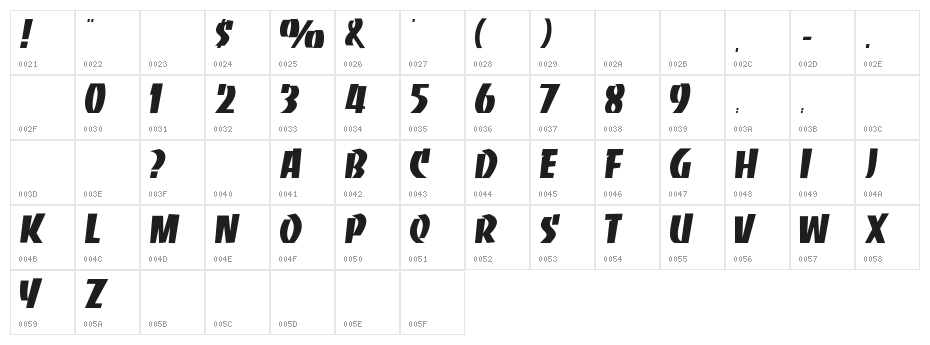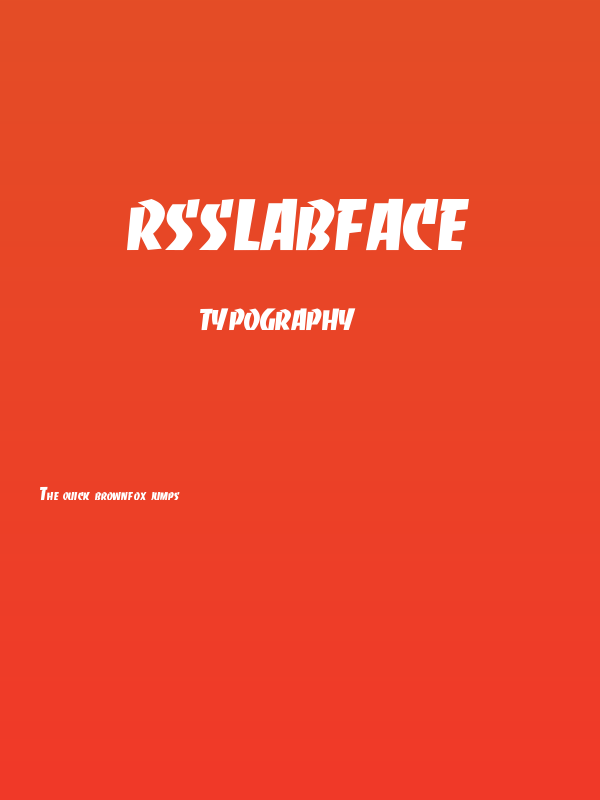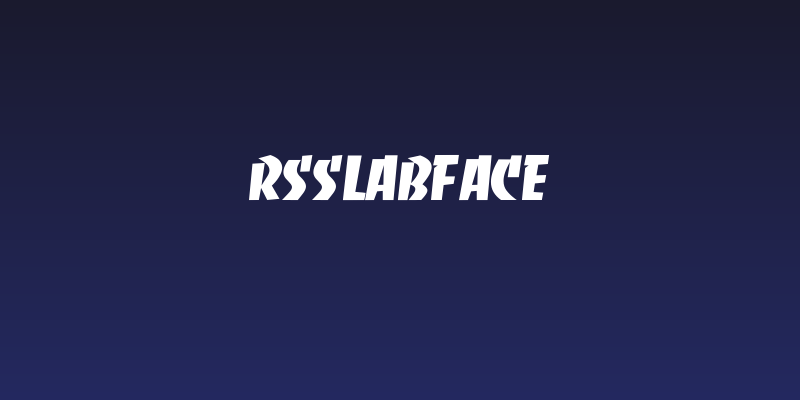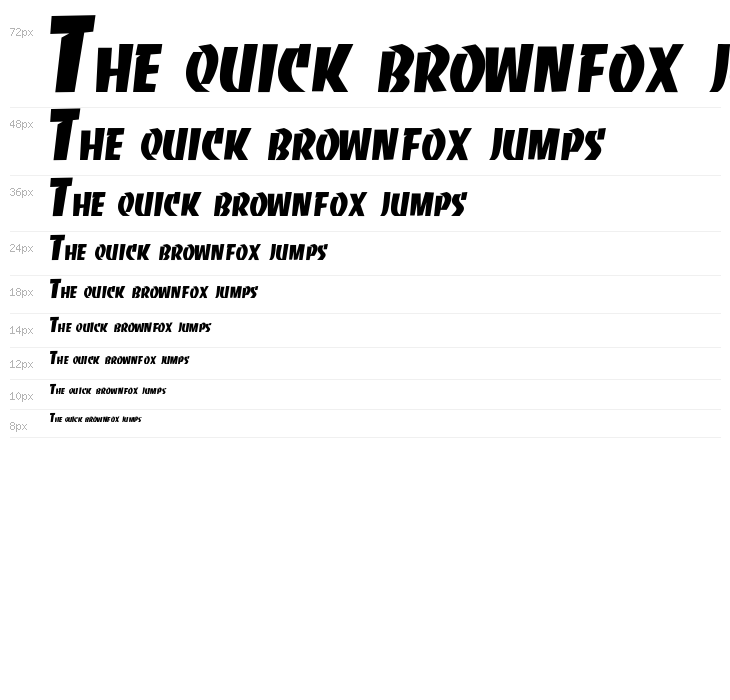
RSSlabface Font
RSSlabface Description
This font features bold, angular characters with a strong, dynamic presence. The letters are sharply cut with a forward-leaning stance, giving a sense of motion and energy. The uppercase and lowercase letters maintain a consistent style, with thick strokes and sharp edges. The numbers and special characters follow the same bold and angular design, ensuring uniformity across all glyphs. This font is ideal for making a strong visual impact, suitable for attention-grabbing headlines or logos.
| Proposed Projects | Ideal for sports branding, action movie posters, dynamic logos, and impactful headlines. |